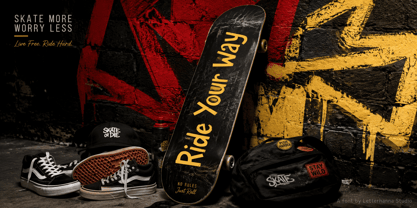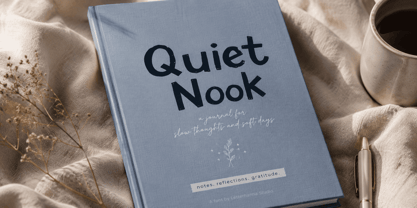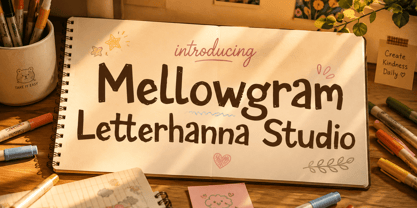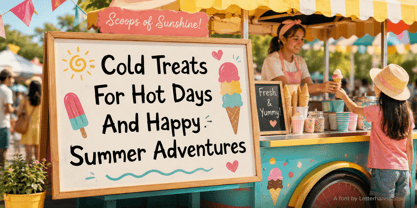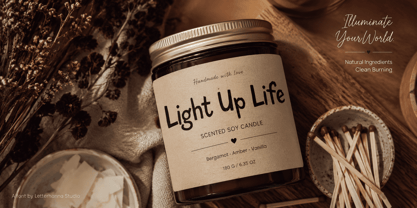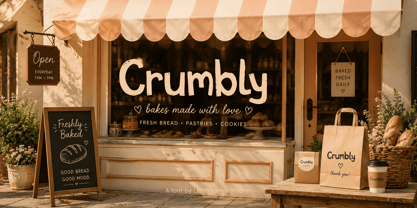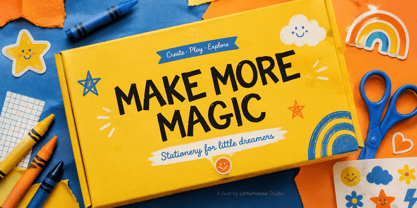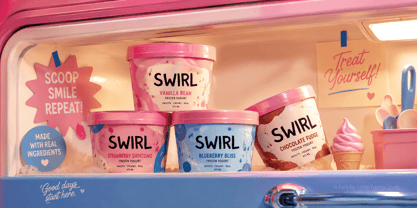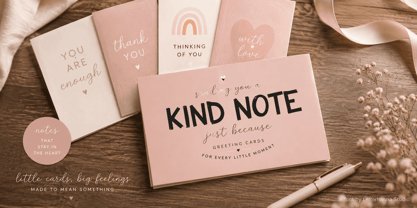
Picture this: you've spent hours picking fonts, and none of them feel "right." That quiet frustration is familiar to almost every designer — typefaces that look fine on paper but say nothing about who you actually are.
A hand drawn font solves that problem almost instantly. Mellowgram isn't just letters on a page; it's texture, rhythm, and personality captured in every stroke.
There's a common misconception that handwritten styles mean sloppy or inconsistent lettering, so people avoid them for anything that needs to look polished. In reality, a great marker font is engineered carefully — bold, deliberate lines with subtle imperfections that mimic real ink on paper, not random scribbles.
Mellowgram nails that balance. The uppercase set feels sturdy and expressive, while lowercase letters flow with a relaxed, doodle-like rhythm. It reads like something scribbled joyfully, yet stays perfectly clear whether it's on a tiny label or a full-page headline.
What tends to surprise people is how fast fonts shape perception — faster than words do. Before anyone actually reads your message, they feel your font. A stiff, generic typeface quietly says "corporate." A doodle font like Mellowgram says "friendly, creative, approachable," instantly and without effort.
That single shift in feeling can transform how customers respond to your brand, packaging, or social content, often more than the copy itself.
Whether you're designing kids' products, journals, greeting cards, or playful branding, Mellowgram brings that hand-crafted marker charm to every project effortlessly, while keeping everything easy to read.